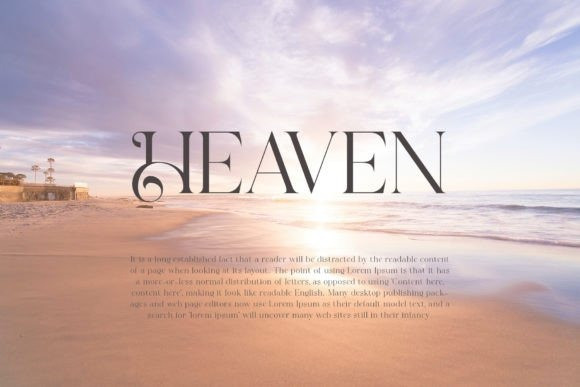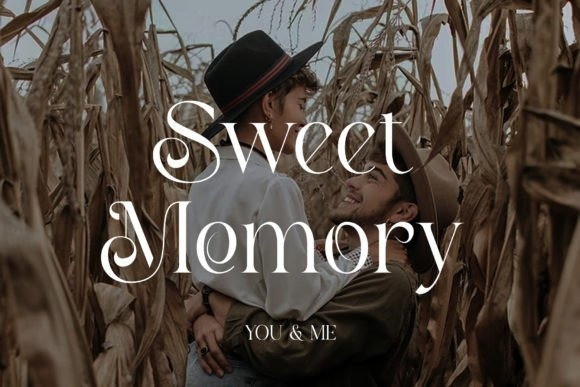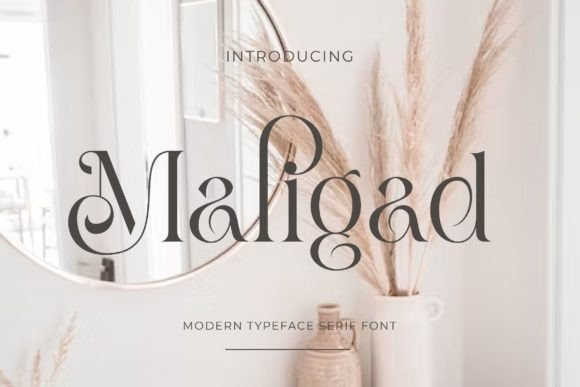
Maligad Font
Maligad Font is an elegant serif font inspired by the famous minimalist logo, perfect for the purposes of designing templates, brochures, videos, advertising branding, invitations, social media and more!